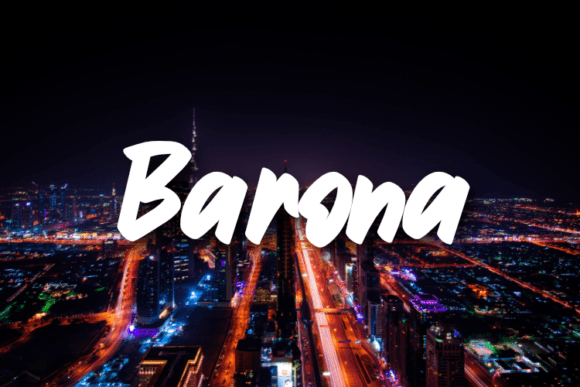
Unveiling Barona Font: Elevate Your Designs with Versatility and Style
In the realm of typography, a font can make or break the visual appeal of a design. For those seeking a typeface that effortlessly enhances the aesthetics of clothing designs and various other commodities, Barona Font emerges as a beacon of versatility and style. This comprehensive guide will delve into the world of Barona, exploring its universal appeal, compatibility, and the myriad of ways it can elevate your creative projects.
The Essence of Barona Font
Barona Font is a meticulously crafted typeface designed to complement any design layout seamlessly. Its universal appeal lies in its ability to blend with various styles, making it an ideal choice for designers across different niches. Whether you’re working on clothing designs, branding, or digital content, Barona promises to bring a fresh and eye-catching appeal to your creations.
One of the standout features of Barona Font is its versatility. It is not confined to a specific genre or industry, making it a valuable asset for designers who work on a wide range of projects. From fashion labels to digital blogs, Barona can adapt and enhance any design, ensuring your work stands out in a crowded marketplace.
Enhancing Clothing Designs and Commodities
For fashion designers and clothing brands, the visual appeal of a design is paramount. Barona Font offers a sophisticated yet modern look that can instantly elevate the aesthetics of clothing designs. Its clean lines and elegant curves make it perfect for creating eye-catching labels, packaging, and marketing materials.
Moreover, Barona’s versatility extends beyond clothing designs. It can be used to enhance the visual appeal of various commodities, including product labels, brochures, and digital advertisements. Its universal appeal ensures that it can adapt to different branding styles, making it a valuable asset for businesses looking to create a cohesive visual identity.
Augmenting Creative Endeavors
Creativity knows no bounds, and with Barona Font, your creative endeavors can reach new heights. Its unmatched versatility and compatibility make it an ideal choice for designers looking to push the boundaries of their designs.
Why Choose Barona Font?
In conclusion, Barona Font is a game-changer for designers looking to elevate their creations with a versatile and stylish typeface. Its universal appeal, compatibility, and elegant aesthetics make it an ideal choice for enhancing the visual appeal of clothing designs and various other commodities.
Whether you’re a professional designer or just starting out, Barona offers the perfect blend of style, versatility, and compatibility. By incorporating Barona into your design toolkit, you can ensure that your projects stand out and leave a lasting impression on your audience.